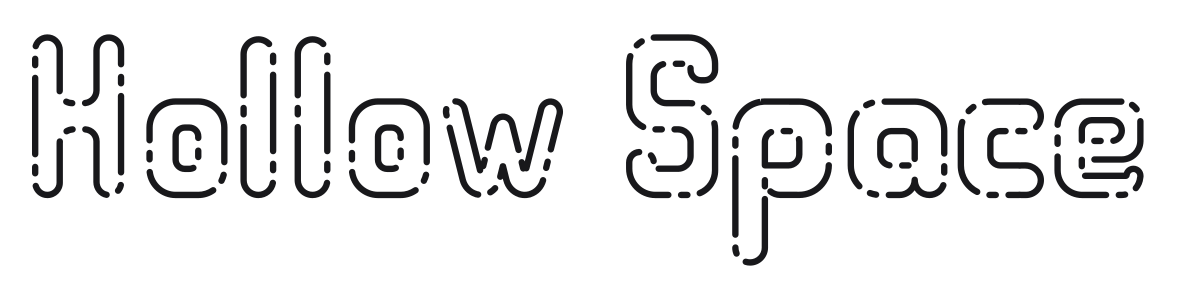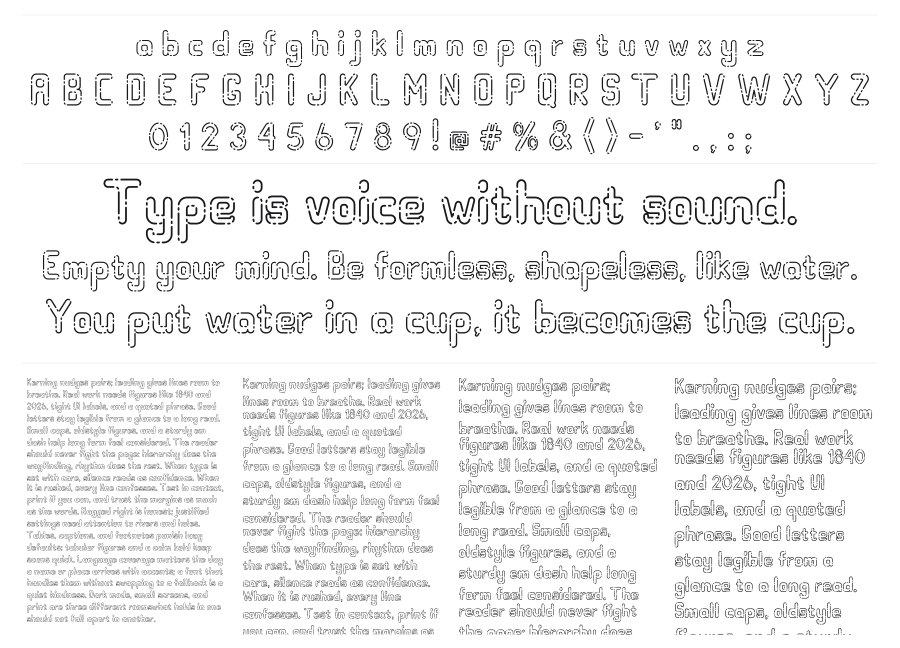
Hollow Space
by Richard Ponto
Hollow Space is a rounded outline display font where every character is defined by a dashed, perforated border rather than a solid stroke. The wide, open proportions and hollow interiors give it a light, airy quality with a distinct sci-fi or digital edge. It works best at large sizes where the dotted outline detail reads clearly.